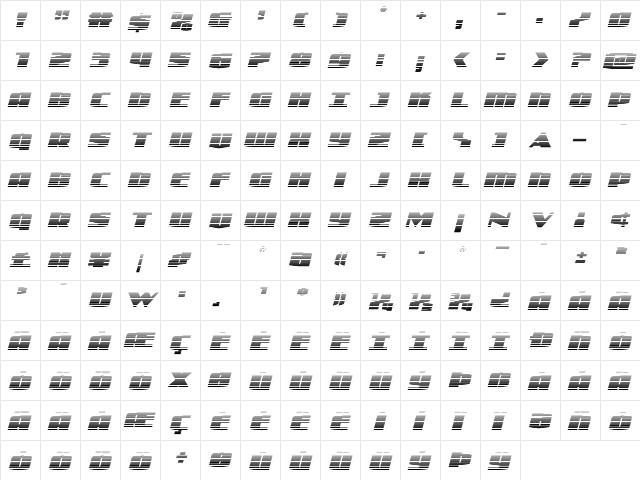
Alpha Century Gradient Italic Regular
Design Context for Alpha Century Gradient Italic Typeface
Alpha Century Gradient Italic is a composed and adaptable typeface that performs quietly and consistently across a wide range of design contexts. The dynamic lean of this cut emphasises speed and emphasis in any layout.
Pro Tip: Use Alpha Century Gradient Italic for emphasis, pull quotes, and subheadings where its slanted energy can add rhythm to the layout.